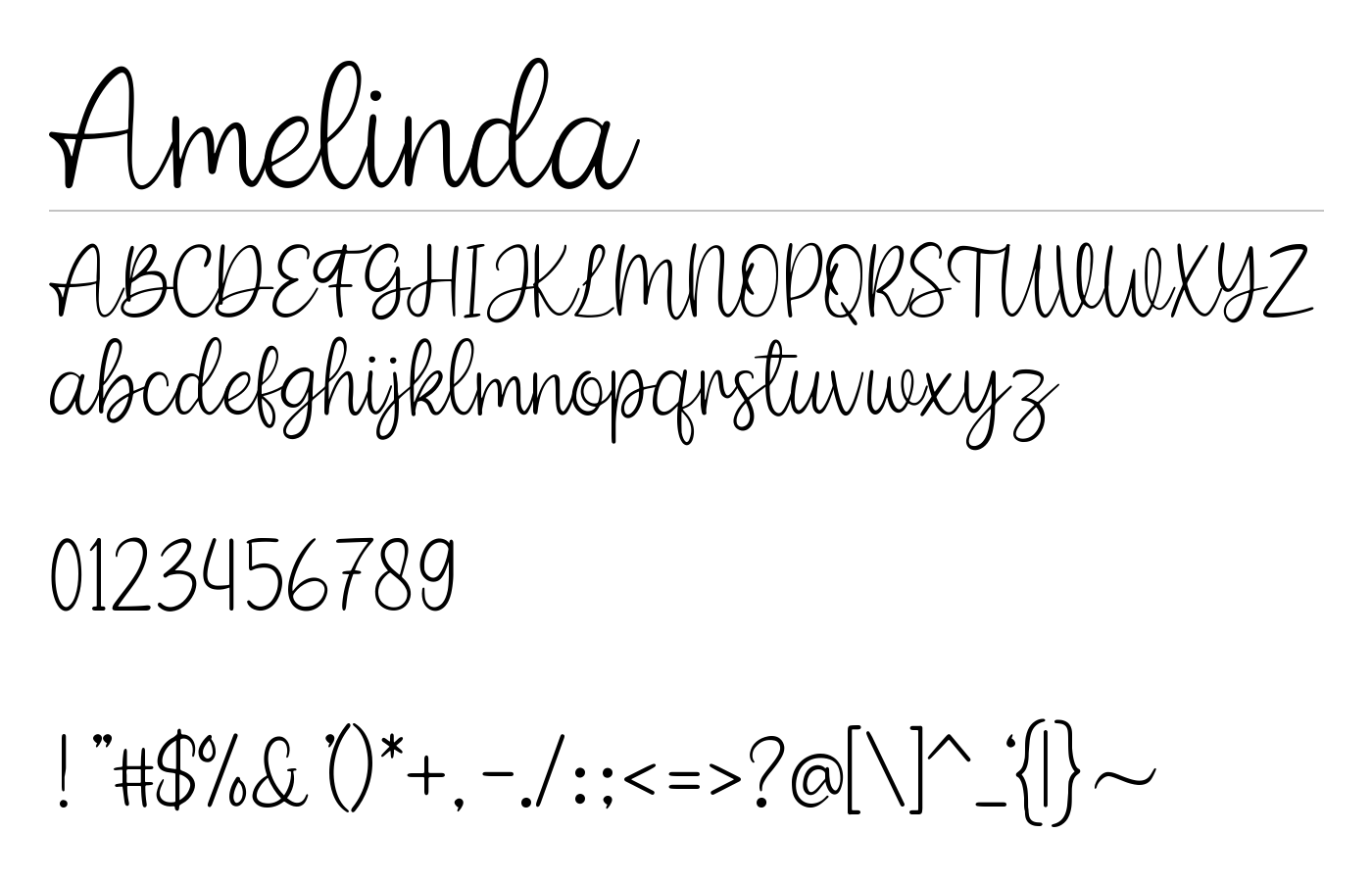
Amelinda is a delicate and playful handwritten script font with thin, flowing lines that evoke a sense of warmth and friendliness. Its casual yet elegant style makes it perfect for creative projects, personal branding, and invitations where a personal, approachable touch is desired. The font’s airy letter spacing and graceful curves lend a charming, handcrafted feel that works beautifully in both digital and print designs.
Amelinda Font
About Amelinda Font
| Font family | Amelinda Font |
| Designer | Choirul Creator |